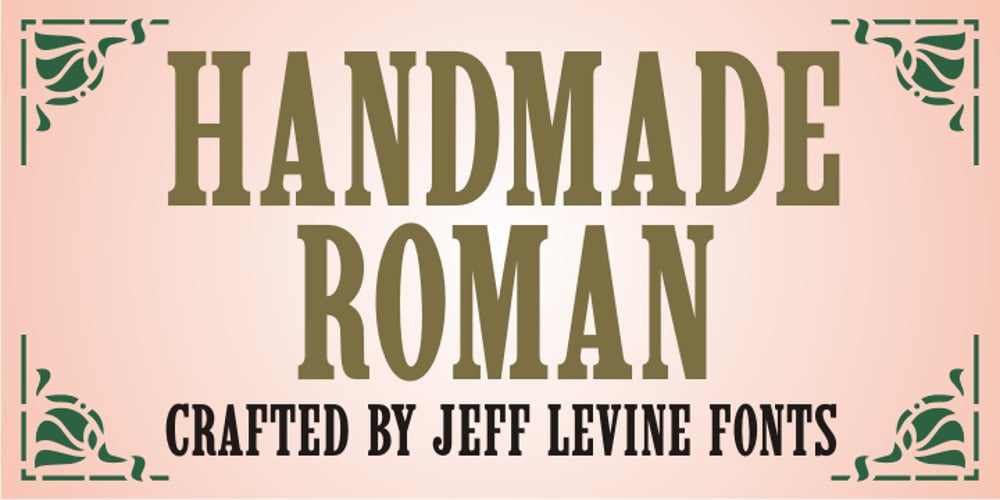
Handmade Roman JNL Font Family was designed by Jeff Levine and published by Jeff Levine. Handmade Roman JNL contains 1 styles and family package options. Handmade Roman JNL is a simple and clean serif design. Perfect for headlines or titles, this condensed serif font gets attention without being overly formal.